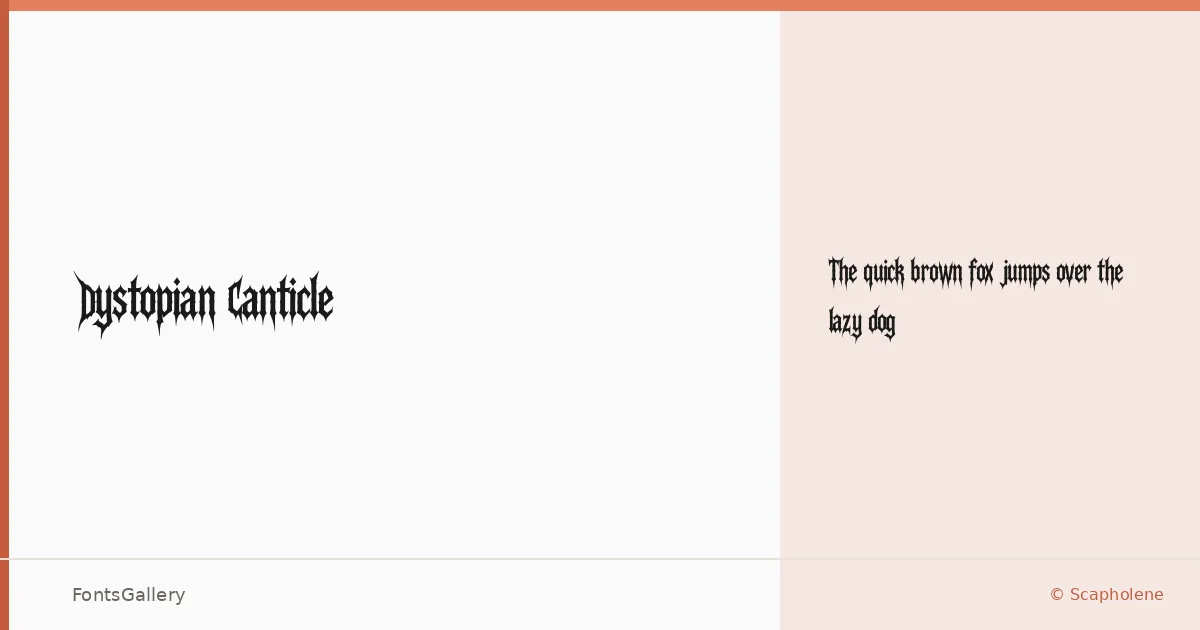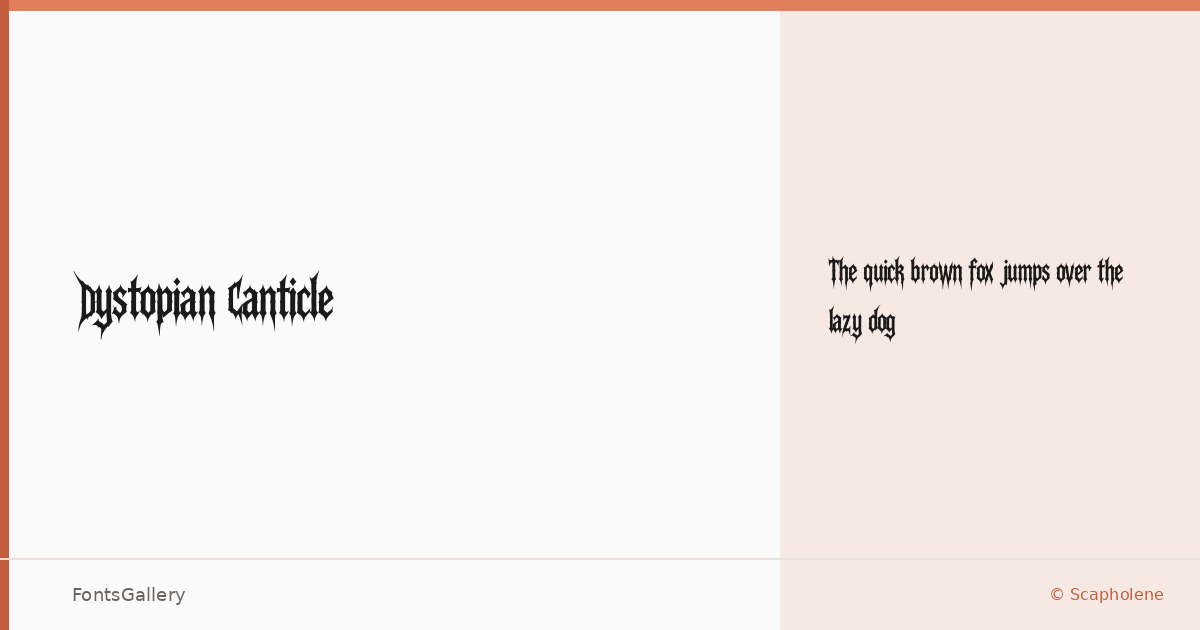
About Dystopian Canticle Font
There is something deliberately unsettled about this blackletter — the kind of gothic tension that sits between a medieval manuscript and a cracked warehouse wall. Released by Scapholene, it arrives as a single Regular cut in OTF format, which keeps the offering focused and the intention clear.
The blackletter construction carries a bold, vintage weight with a grunge undercurrent that stops it from feeling purely historical. The strokes have the angularity you expect from the category, but there is a rawness here — something deliberately worn — that pulls it away from ceremony and closer to confrontation. It covers Latin, and within that scope it does its job with conviction.
This face earns its place on book covers and posters where drama is the brief, and it has the visual muscle for logo and branding work that needs a classic-yet-gritty register. T-shirt design is a natural fit, where that combination of bold structure and grunge texture reads well at a distance and up close. It pairs confidently with Helvetica or Audex when you need a clean sans to balance the weight, and with Aresink, Alexandria, or Bizantheum when the whole composition wants to stay in darker, more decorative territory.